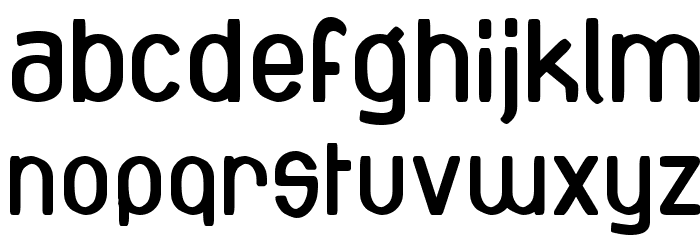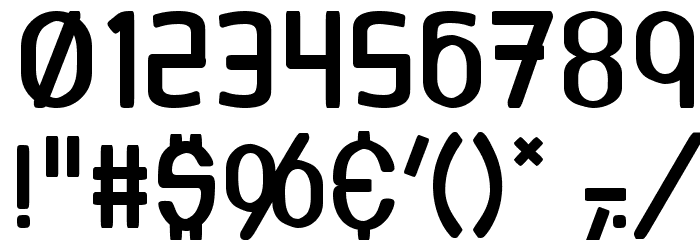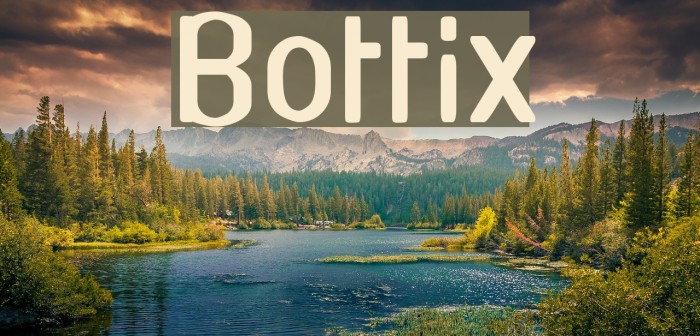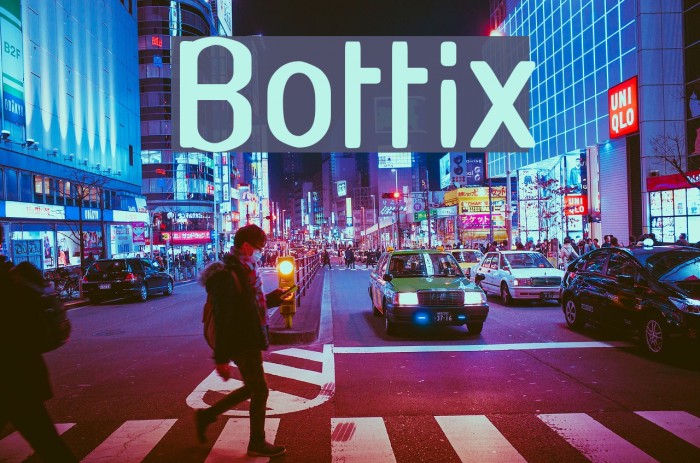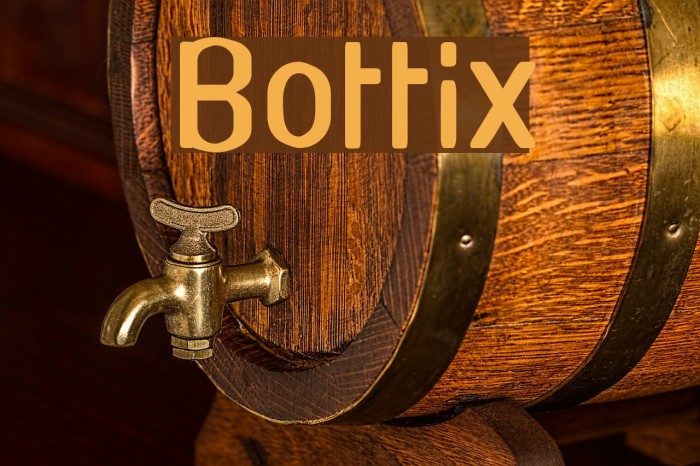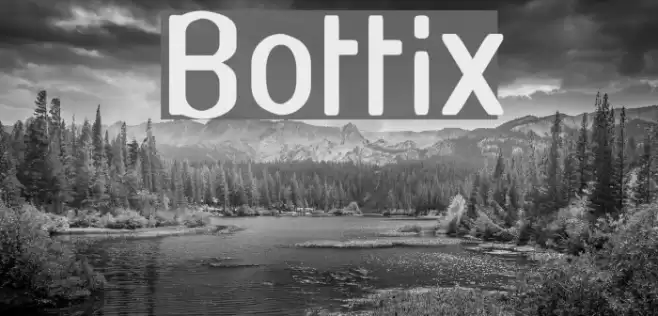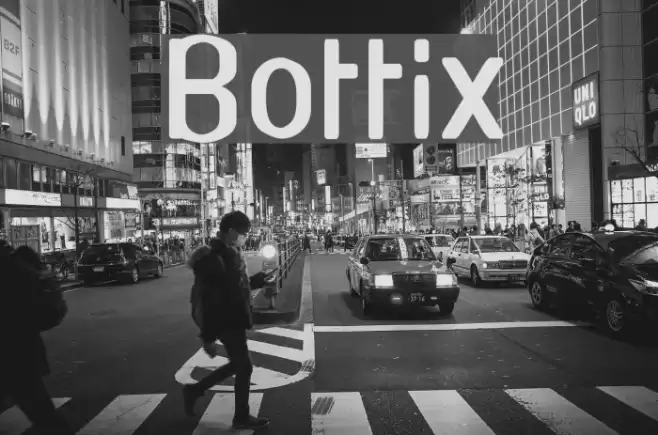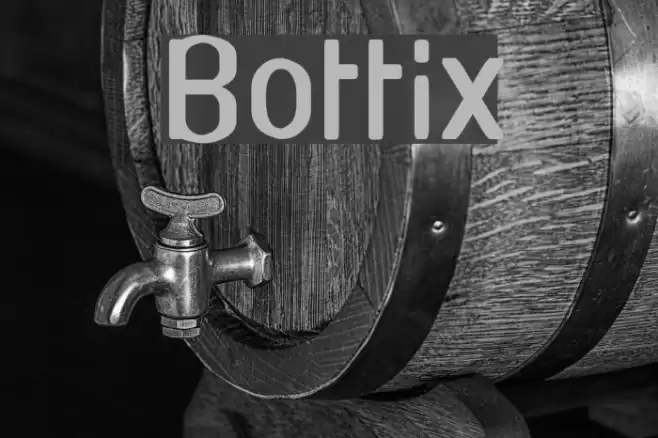
Bottix Font
This font features a modern and sleek design with rounded edges and a uniform stroke width, giving it a friendly and approachable appearance. The characters are well-balanced with a consistent height and width, making it highly legible. The uppercase letters have a slightly geometric feel, while the lowercase letters maintain a smooth and flowing style. The numerals are clear and distinct, matching the overall aesthetic of the font. Special characters are included, adding versatility for various design needs.
A modern, rounded font with uniform stroke width and high legibility.
- Proposed Projects: Ideal for branding, digital interfaces, signage, and educational materials due to its clarity and modern appeal.